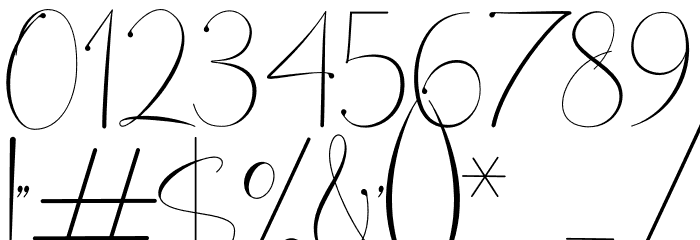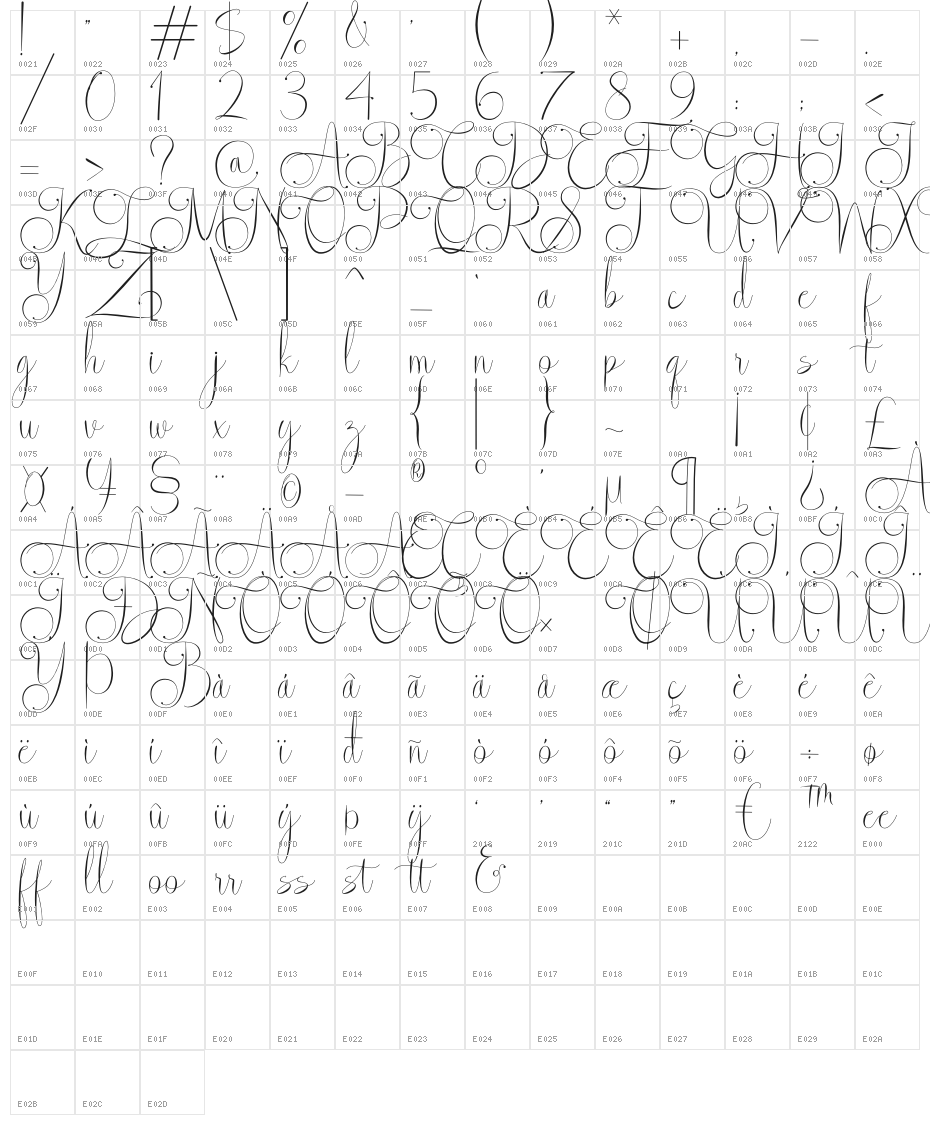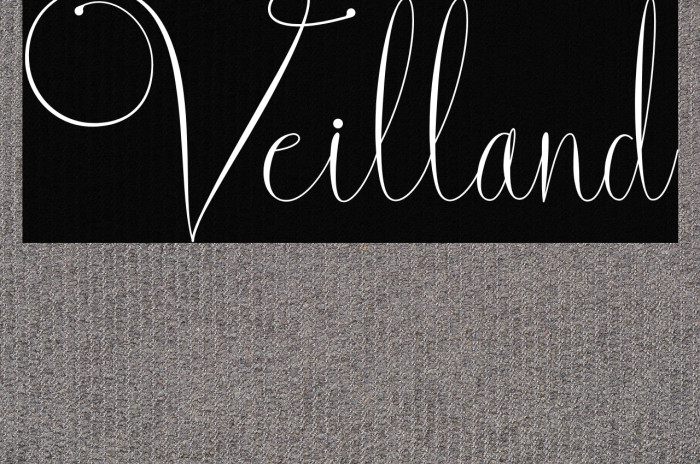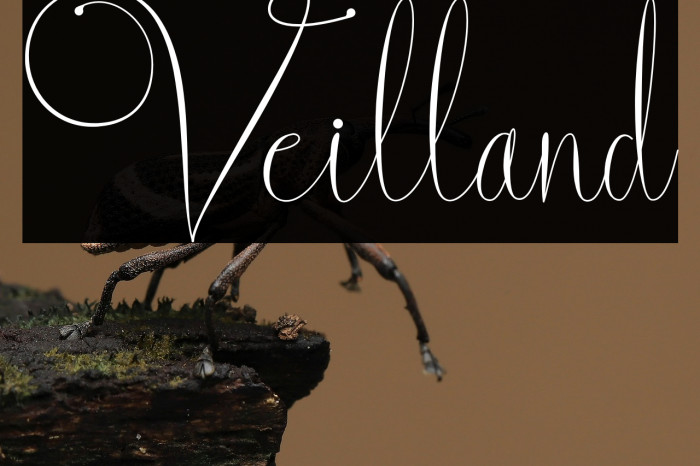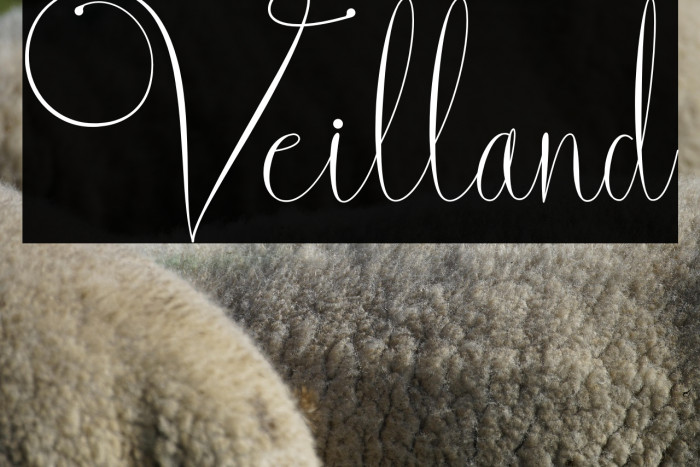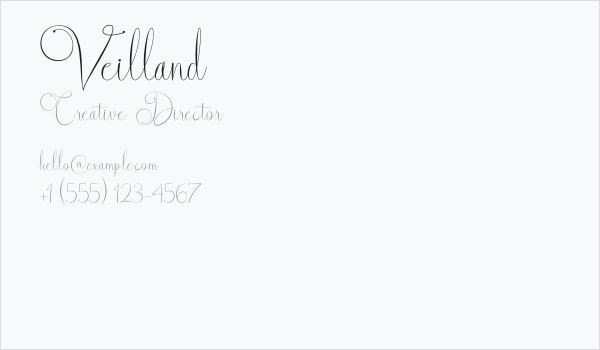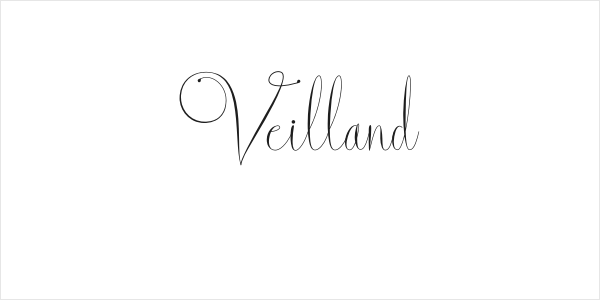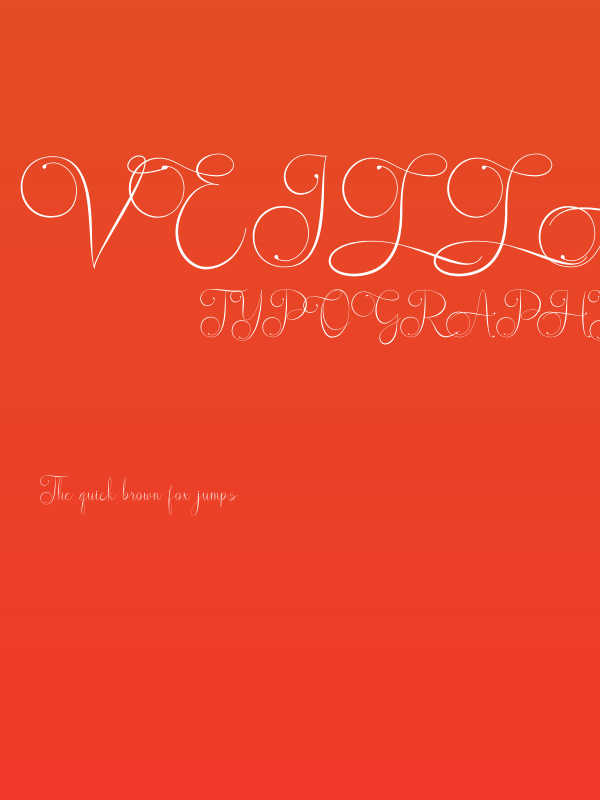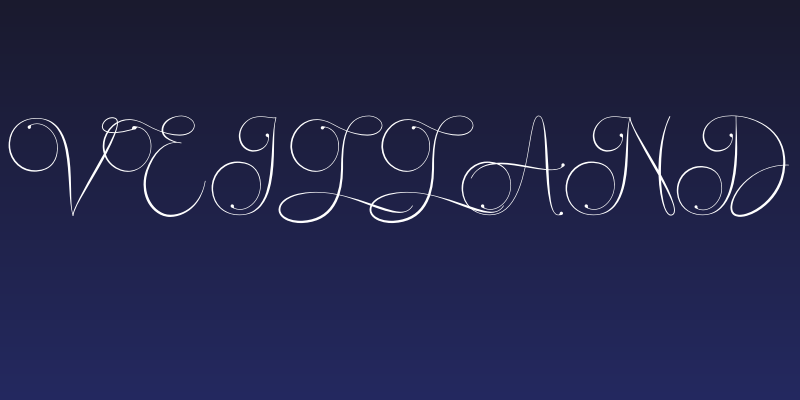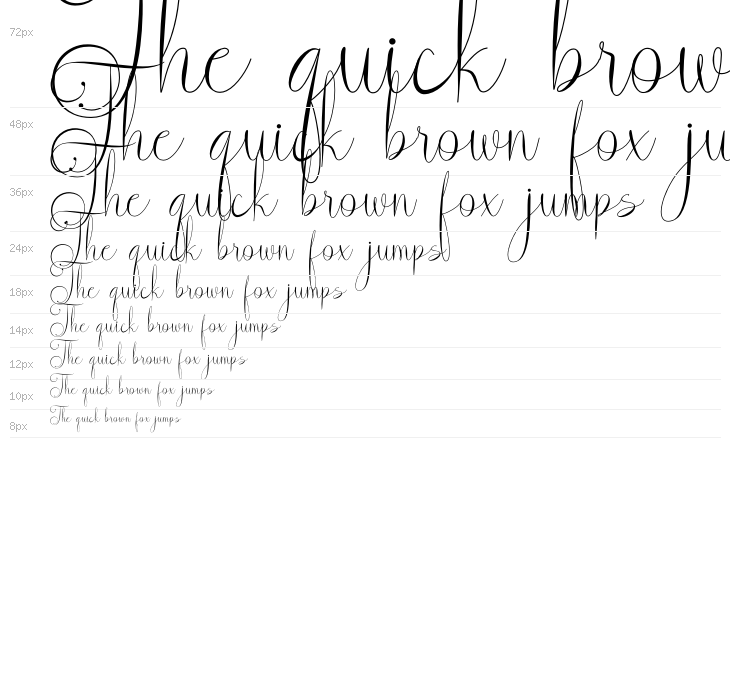
Veilland Font
Veilland Description
This font is an elegant and sophisticated script style that features intricate swirls and loops, giving it a decorative and artistic flair. The uppercase letters are characterized by their elaborate flourishes, while the lowercase letters maintain a more streamlined yet still ornate appearance. The numbers and special characters follow suit with a consistent decorative theme. The overall design is delicate and refined, making it suitable for projects that require a touch of elegance and creativity. The font's thin strokes and high contrast between thick and thin lines add to its graceful aesthetic, making it ideal for formal invitations, branding, and artistic projects.
| Proposed Projects | Ideal for wedding invitations, luxury branding, artistic projects, and decorative headlines. |